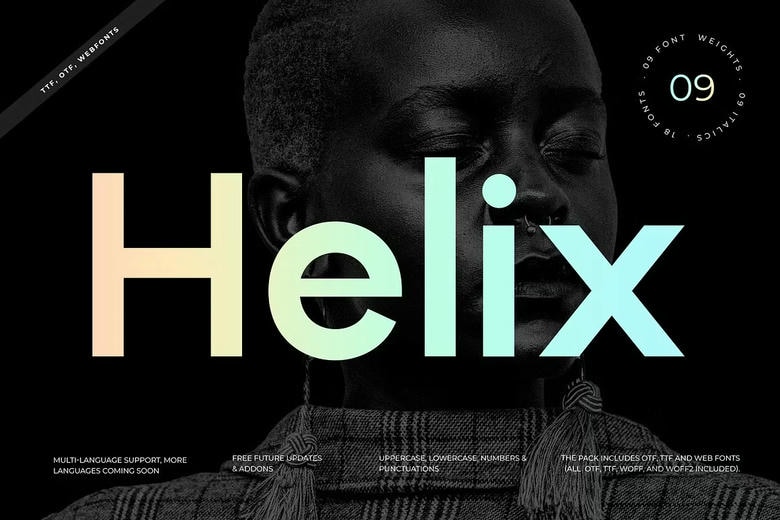
Helix Font Family
Helix is a contemporary sans serif font system that is designed with clarity, balance and precision. Helix is a digital-first and professional design, created in minimal style. To ensure 18 fonts, the family has 9 thoughtfully crafted weights, starting with Thin and ending with Heavy, with corresponding italics. The proportions, spacing and alignment of each weight are made consistent thus making it easy to maintain the visual consistency when using the different layouts and across varying screen sizes.
Helix Sans Serif Font Family